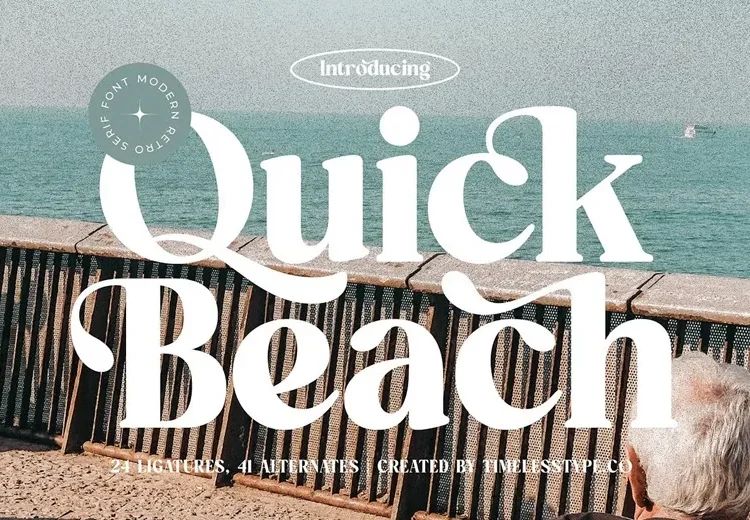
Quick Beach Font
Quick Beach is a modern retro serif font from Timelesstype.Co, designed to add a stylish touch to a variety of projects. Its unique design makes it ideal for creating visually appealing posters, logos, and branding materials. Whether you’re working on homeware designs, product packaging, or crafting memorable quotes and sayings, Quick Beach offers the versatility you need to elevate your creative endeavors.
This font shines in applications such as shopping bags, t-shirts, book covers, name cards, and greeting cards. Its elegant and premium feel ensures that your designs stand out, making it perfect for special occasions and events. With Quick Beach, you can effortlessly convey a sense of sophistication and nostalgia in your work.
The thoughtful design of Quick Beach allows it to work seamlessly across multiple mediums, ensuring high readability and aesthetic appeal. Whether you’re designing for print or digital formats, this font will help you achieve a polished and professional look.